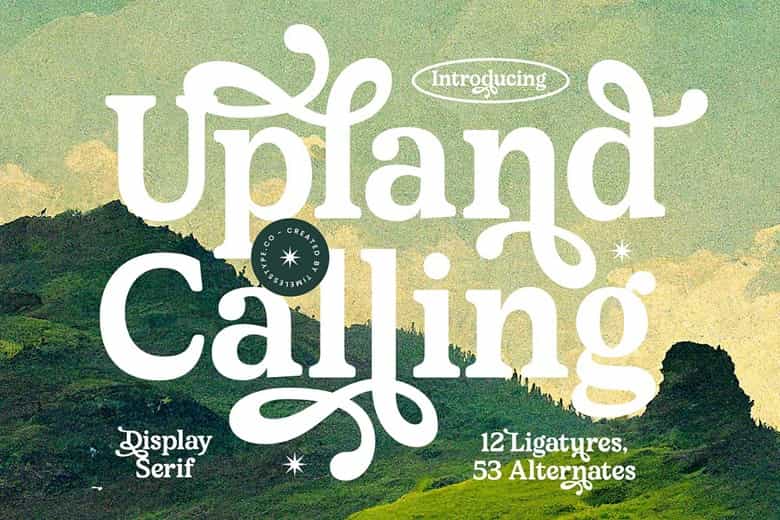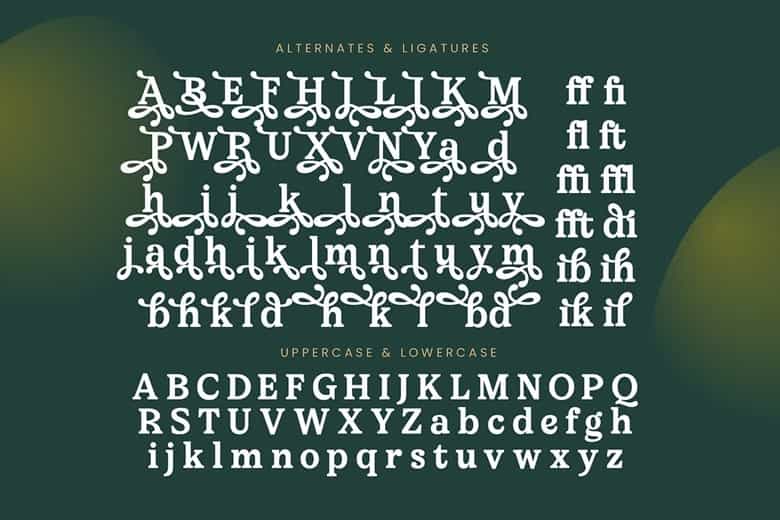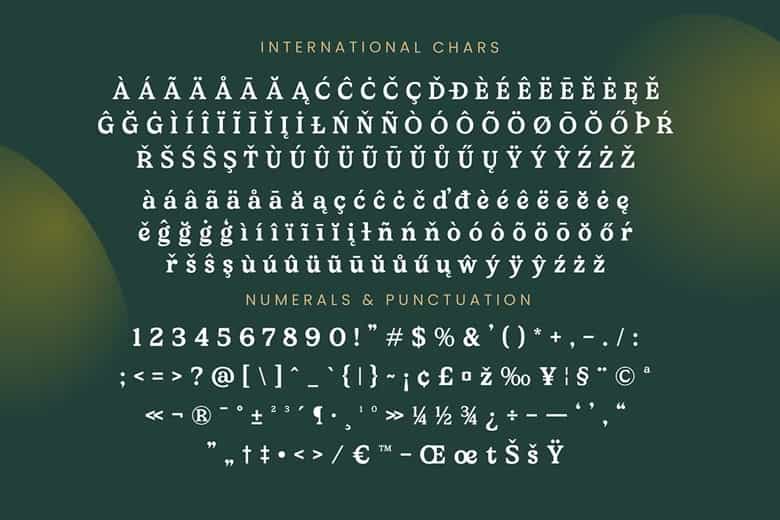
Upland Calling Font
Upland Calling is a fantastic retro vintage serif font. It’s suitable for any projects such as: Logos, branding projects, homeware designs product packaging, mugs and quotes, posters, shopping bags, T-shirts, book covers, name card, invitation cards, greeting cards, labels,& special events and all your other luxury and beautiful projects that require a Luxury Serif taste.